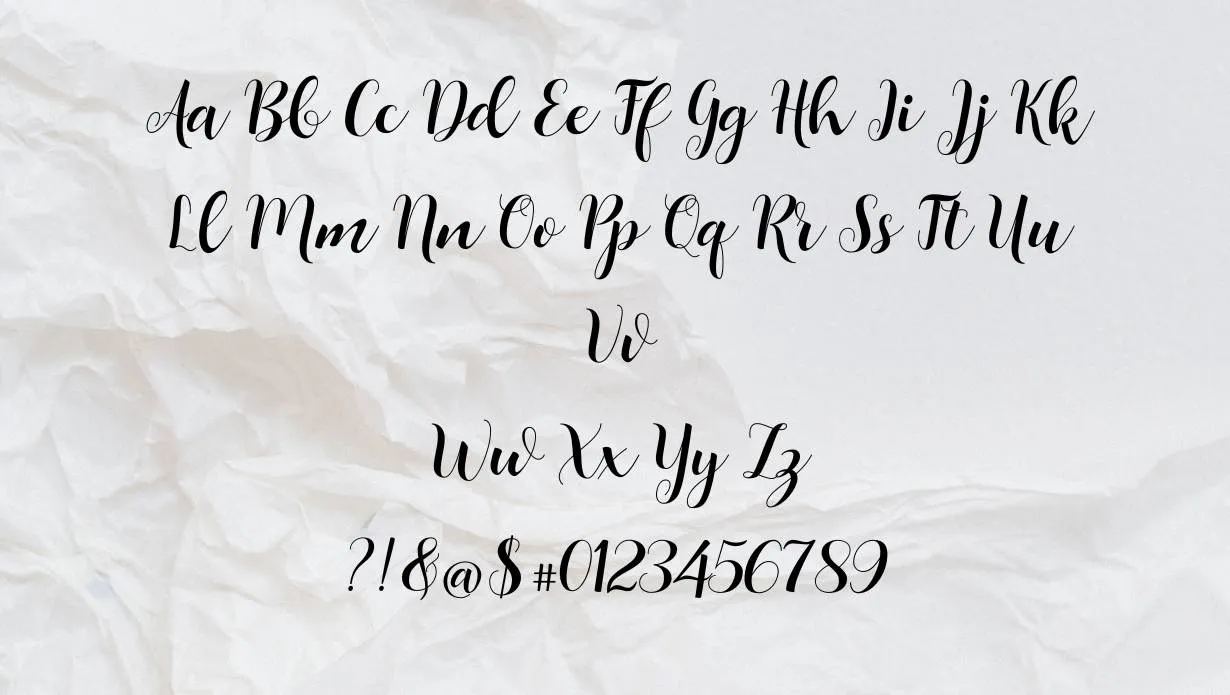
Boulevard font is a classic and stylish typeface used in designs seeking a sophisticated and timeless feel. Its sleek and ornate letters make it suitable for conveying elegance and importance.
The weight of this font tends to be on the bolder side, ensuring a strong and impactful presence. Its width is usually standard, allowing for readability in various applications, especially in formal documents or high-end branding.